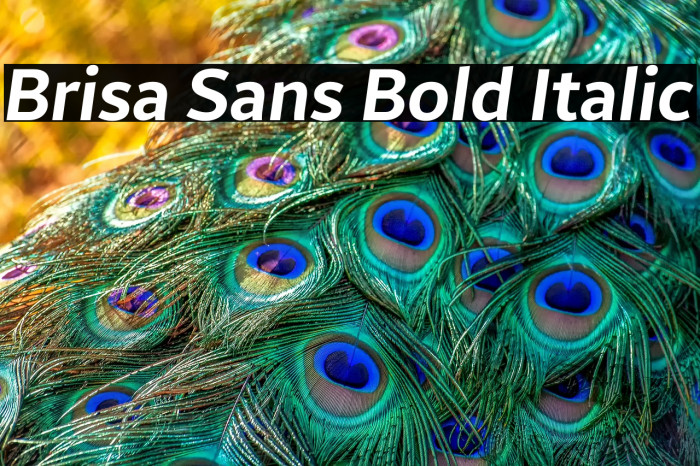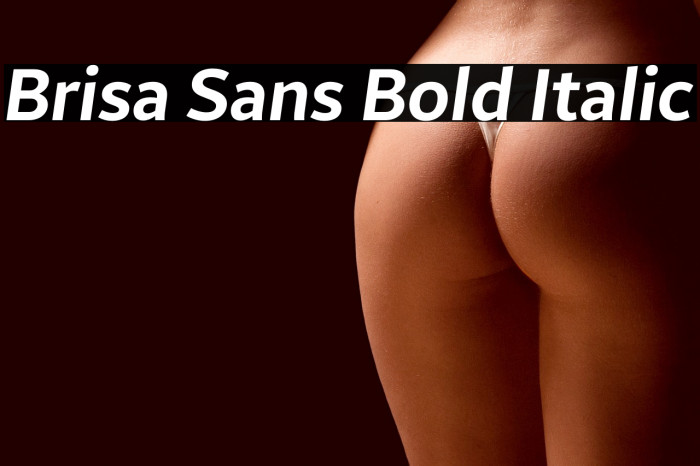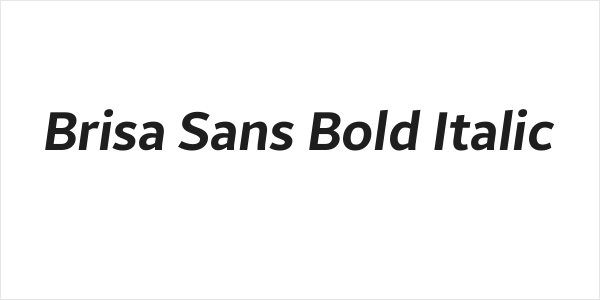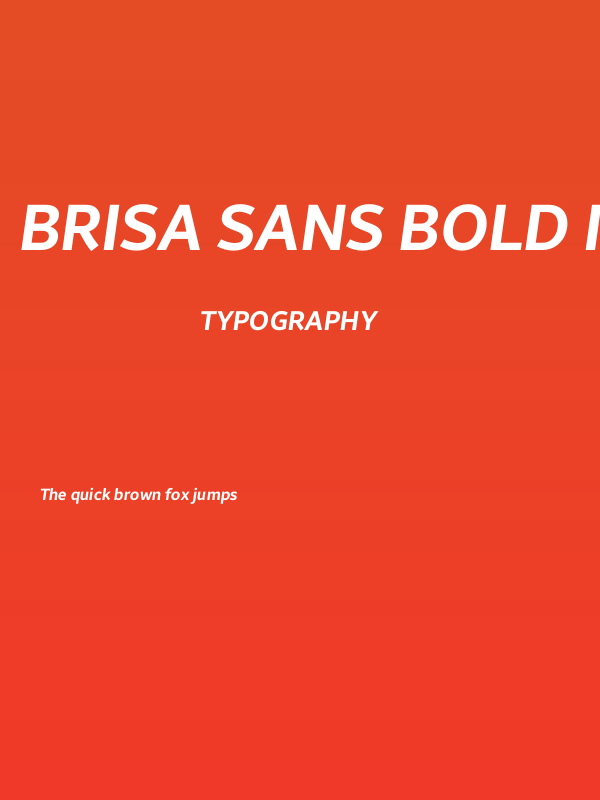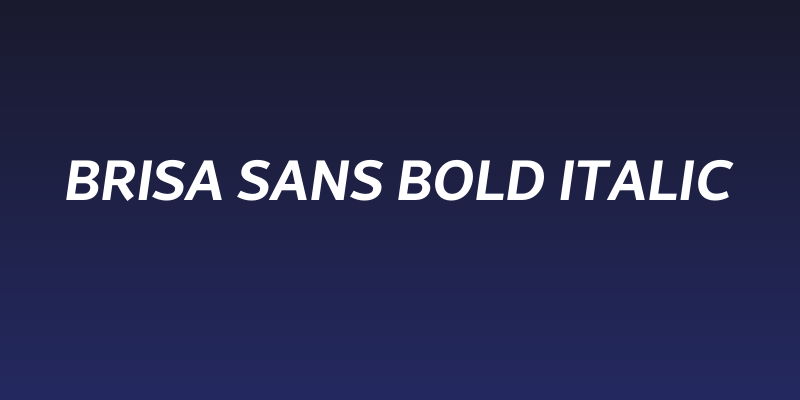
Brisa Sans Bold Italic Font
Brisa Sans Bold Italic Description
This font features a bold and italicized style, combining a modern sans-serif aesthetic with a dynamic slant. The characters are well-defined with a consistent stroke width, creating a strong visual impact. The uppercase and lowercase letters maintain a uniform appearance, while the numerals are clear and easily distinguishable. Special characters are included, providing versatility for various design needs. The overall design is clean and professional, making it suitable for a wide range of applications.
| Proposed Projects | Ideal for branding, advertising, headlines, and digital content where a strong and modern impression is needed. |